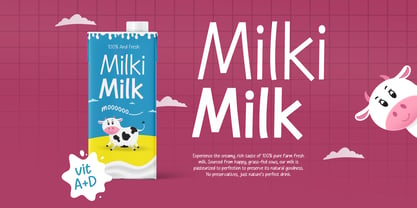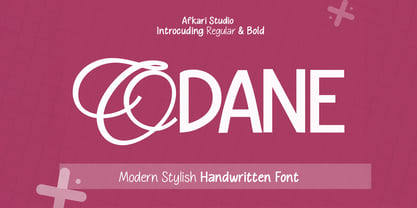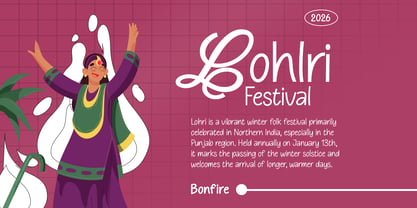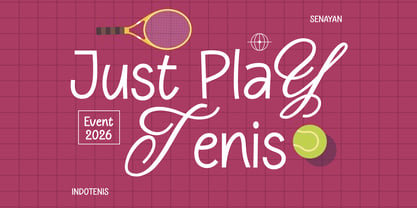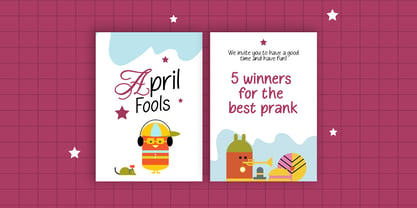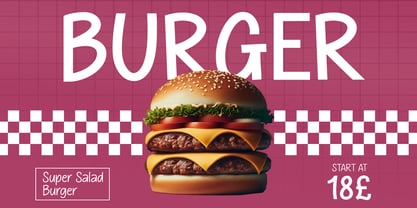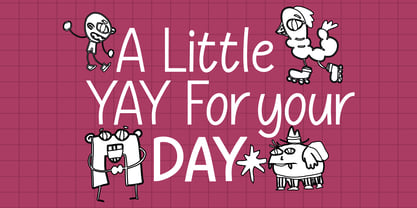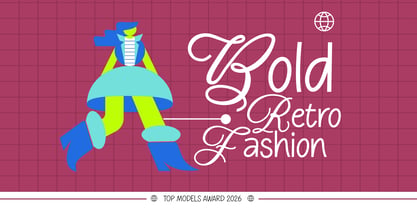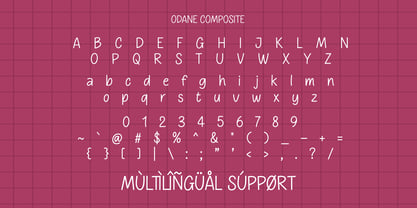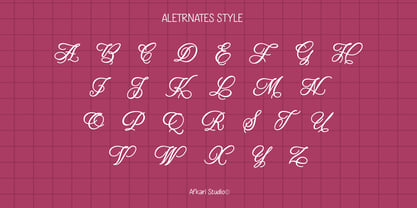
Odane
por Afkari Studio
La familia tipográfica Odane fue diseñada por Musthafa Kamal Emje y publicada por Afkari Studio. Odane contiene 2 estilos y opciones de paquete familiar. Más información sobre esta familia
Odane is a modern stylish handwritten font designed to bring a natural, elegant, and confident handwritten feel into your designs. Featuring smooth strokes and balanced letterforms, Odane blends casual handwriting with a clean, contemporary style—perfect for modern branding and lifestyle visuals. This font includes Regular and Bold styles, giving you flexibility to create visual hierarchy and emphasis. Use Regular for subtle elegance and Bold for stronger impact in headlines, logos, and call-to-action text. Odane remains readable while keeping its handcrafted charm across both styles. Odane is ideal for designers who want typography that feels authentic, stylish, and versatile. Highlighted Features: - Uppercase, Lowercase, Number, and Punctuation - Special alternates and ligatures - Works on PC & Mac - Simple installations - Accessible in Adobe Illustrator, Adobe Photoshop, Adobe InDesign, and even work on Microsoft Word - Fully accessible without additional design software. - Mültîlíñgúãl Sùppört for; ä ö ü Ä Ö Ü ß ¿ ¡ Create modern, stylish designs with confidence using Odane – Modern Stylish Handwritten Font (Regular & Bold).